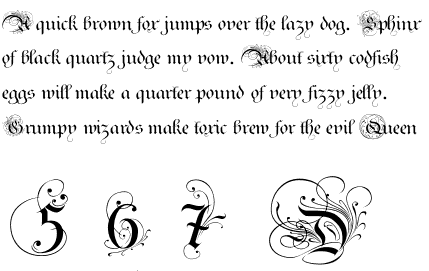
Font Fetish: Ayres Royal
There are many, many situations in which you wouldn't want to use Ayres Royal. But so what? I would buy this typeface just so I could set it really, really big and revel in the loops and curlicues of each exuberant capital and number.
Swashy! I'll say
The Swishiest - Swashiest Font ever!
"Ayres Royal" hardly does the face justice. Maybe "Tatoo Script" or "Guess The Letter Book" would be a better name for the face. Thanks for the article. It made me look!